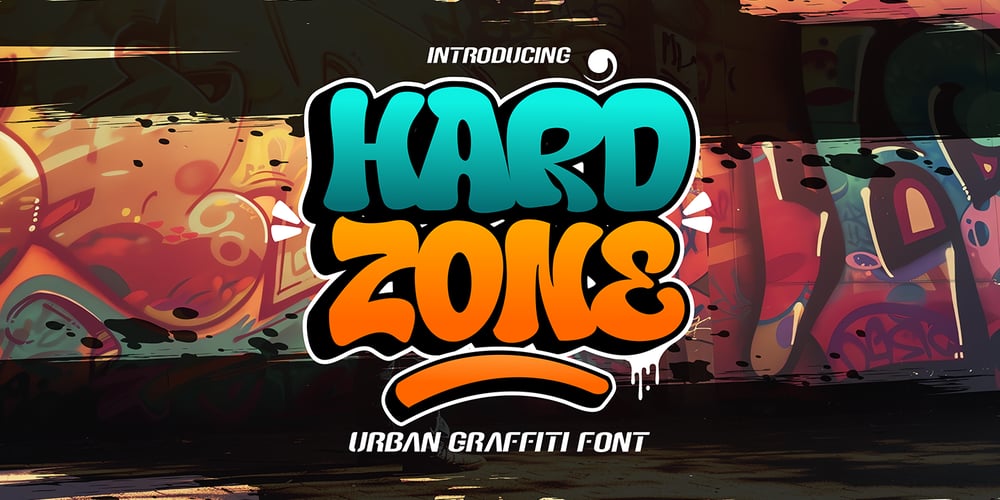
Hard Zone Graffiti Font Family was designed by Sipanji and published by Sipanji21. Hard Zone Graffiti contains 4 styles and family package options. Hard Zone is a 3D layered graffiti font featuring regular letters and swashes, with shadows included on each character. This font brings a dynamic and robust look to your designs, making it perfect for street-themed projects, bold headlines, and eye-catching advertisements. The intricate layering and shadow effects add depth and a three-dimensional appearance, enhancing the visual impact and making your text stand out. Hard Zone’s versatility and edgy style make it an excellent choice for any project that demands a powerful and urban aesthetic.